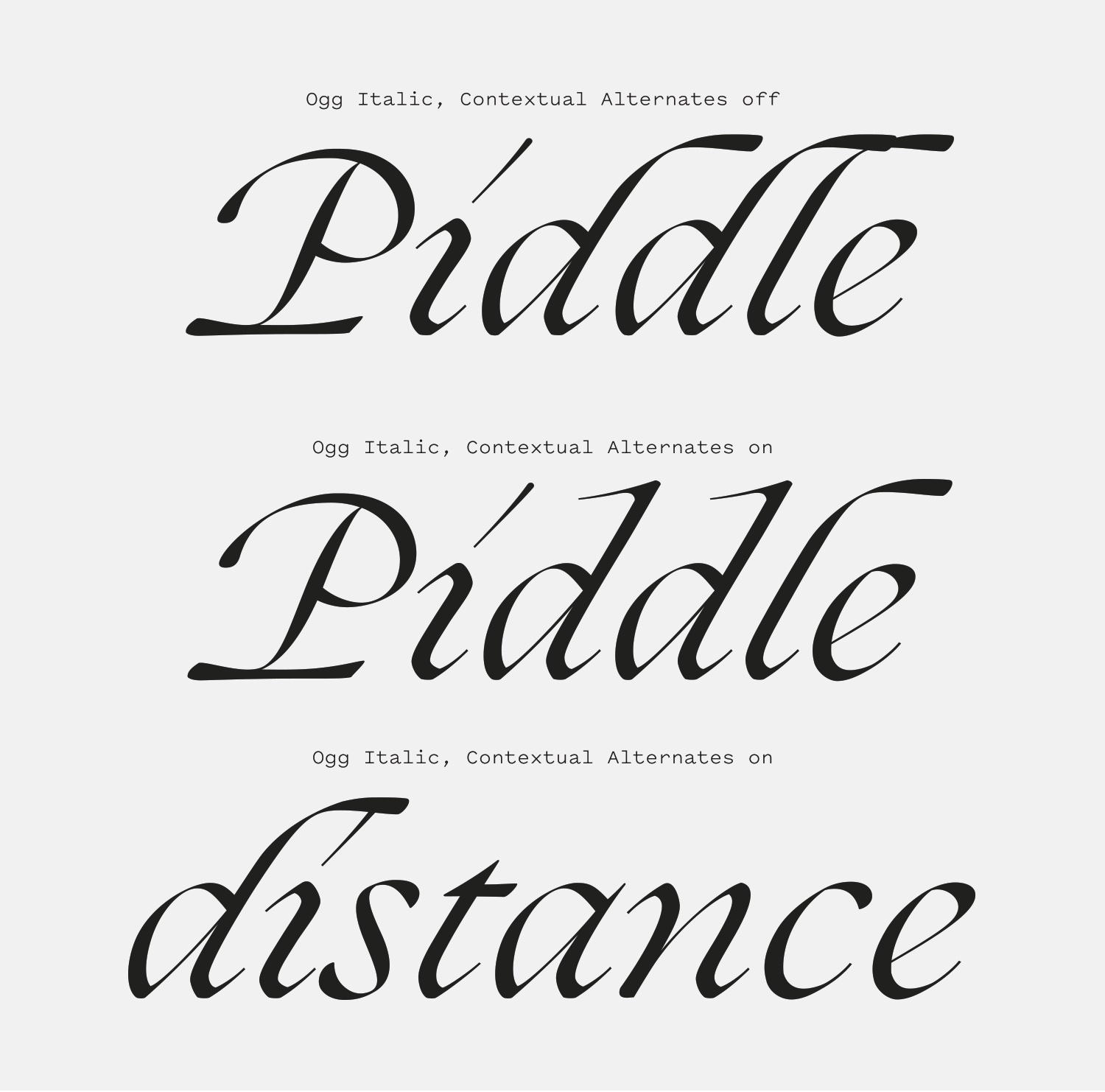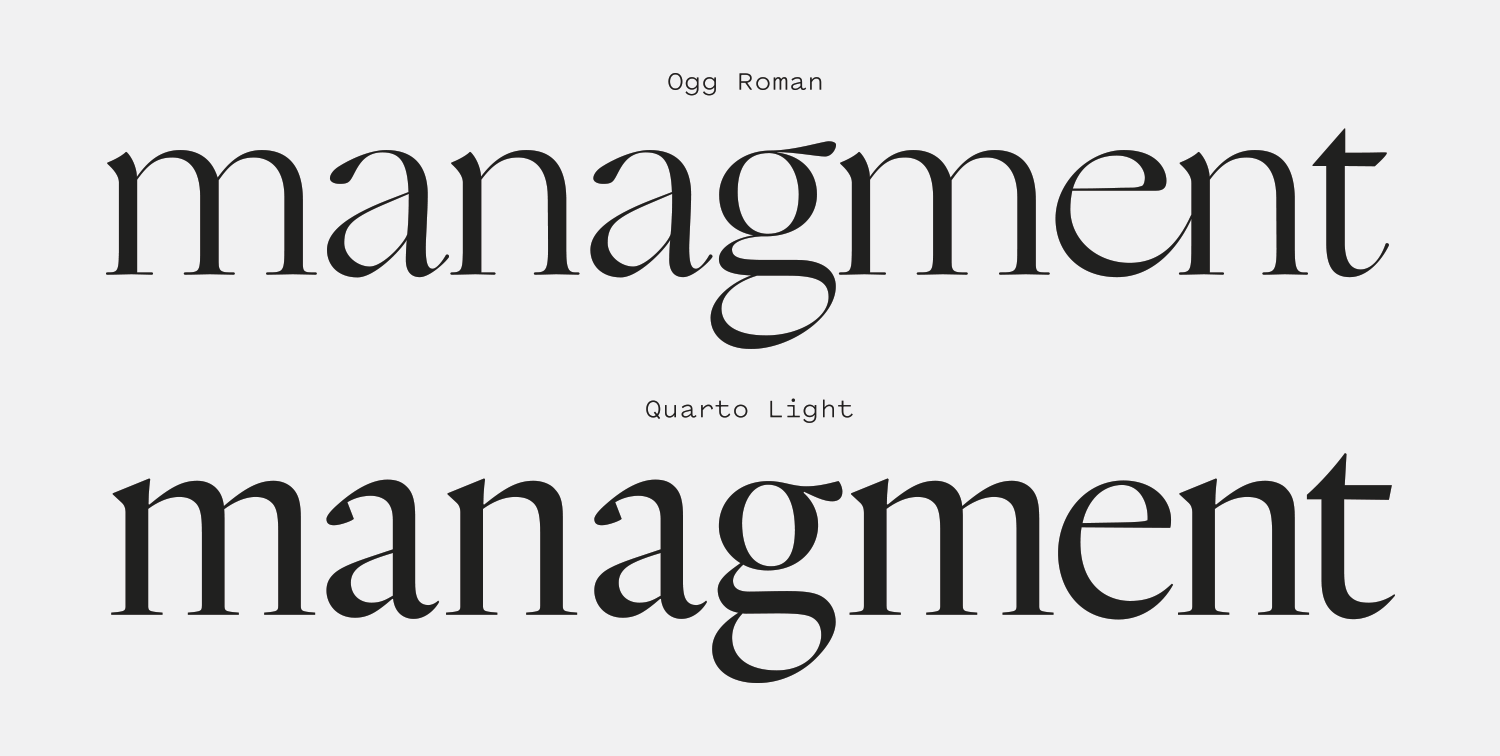
Ogg Roman Font Free. The ogg roman download service (free or paid) provided by fontke is only for personal trial and shall not be used for any commercial purpose. Ogg text is the complementary text face of ogg, the seminal display serif by lucas sharp inspired by the hand lettering of 20th century book designer and calligrapher oscar ogg.
Some fonts provided are trial versions of full versions and may not allow embedding unless a commercial license is purchased or may contain a limited character set. Also, the ogg roman font is perfect for branding projects, housewares designs, product packaging, or simply as a stylish. Summoning a renaissance flavor while still managing to feel fresh and contemporary.
Ogg Is A Calligraphic Serif Typeface Designed By Lucas Sharp And Published By Village In 2013.
Ogg is a calligraphic serif typeface designed by lucas sharp and published by sharp type in 2013. What fonts are similar to ogg roman? Ogg text is the complementary text face of ogg, the seminal display serif by lucas sharp inspired by the hand lettering of 20th century book designer and calligrapher oscar ogg.
Ogg roman version 1.010 font (font family name: The design was inspired by the hand lettering of twentieth century calligrapher oscar ogg. For commercial use, please contact the copyright owner or fontgoods (licensed website of genuine commercial font) provides font commercial license purchasing service.